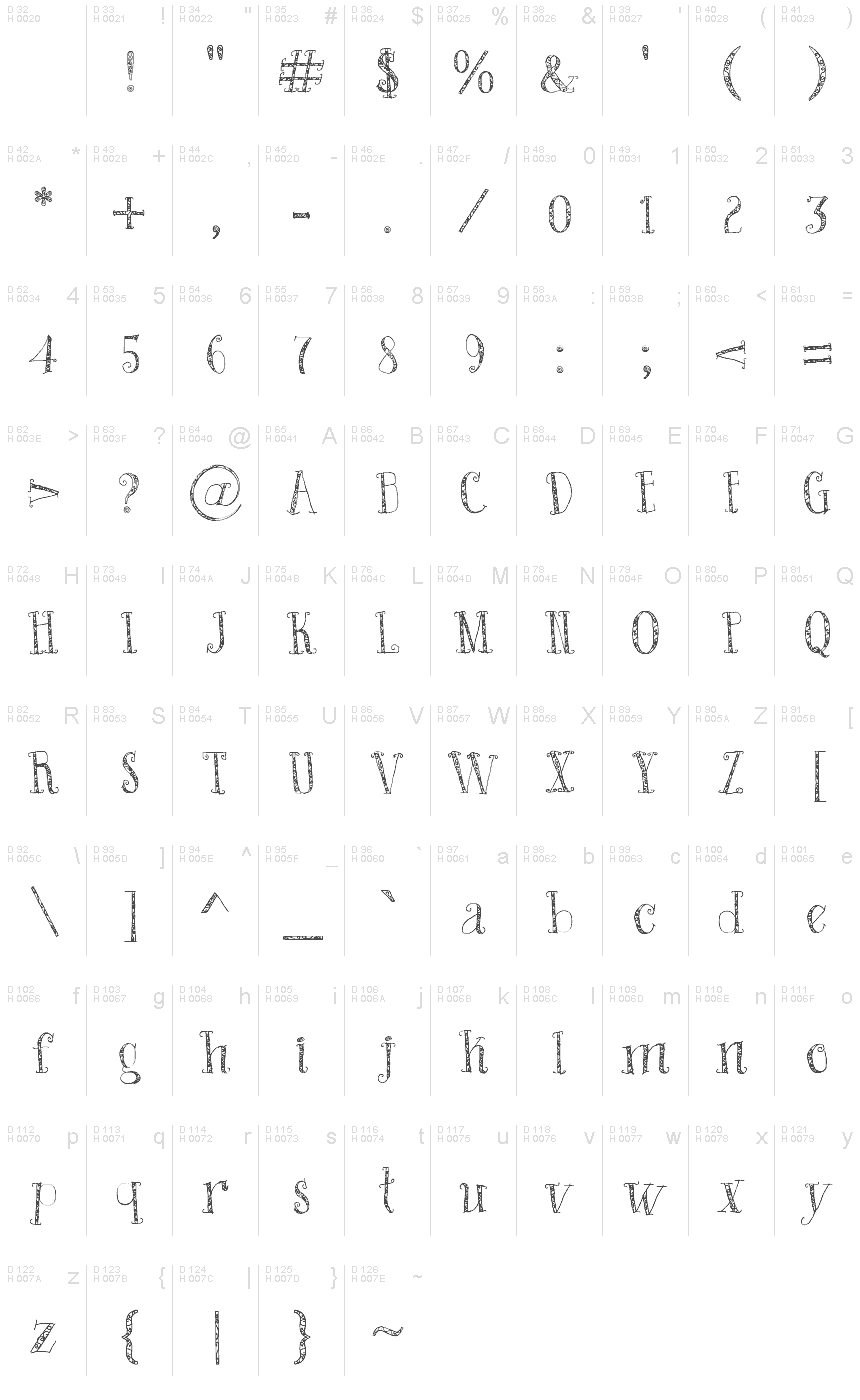
Bad King
Bad King, designed by Galdino Otten, is an enchanting display font that adds a touch of whimsy to any project.
With its semi-light weight and decorative style, this font is perfect for creating eye-catching headlines and logos that demand attention. Whether you're designing a children's book cover or crafting a playful brand identity, Bad King's unique charm will make your designs stand out from the crowd. Let this vibrant and expressive font reign supreme in your next creative venture.